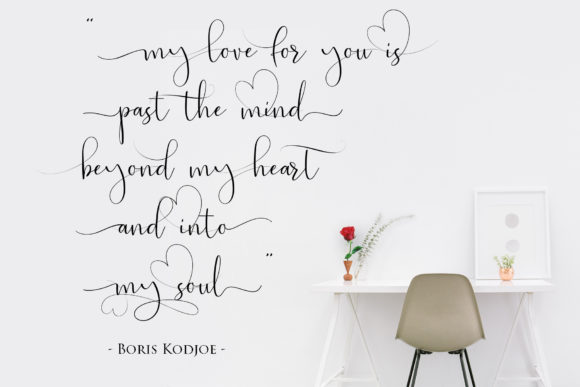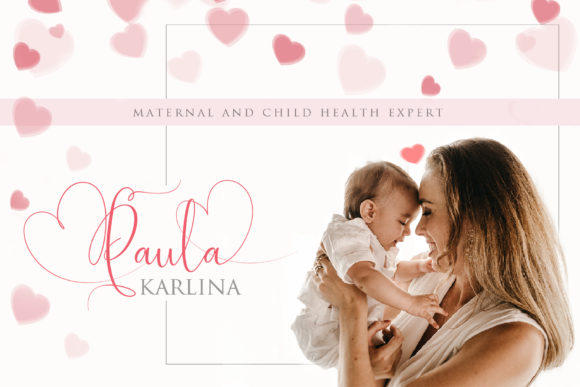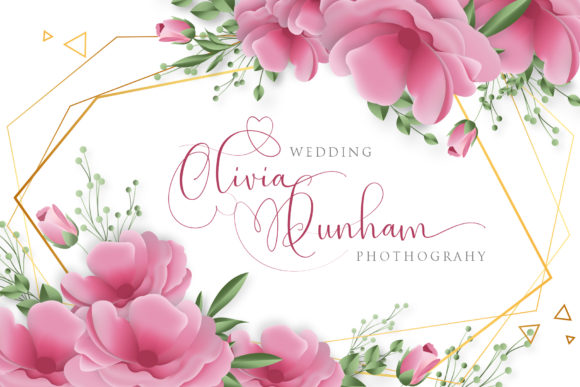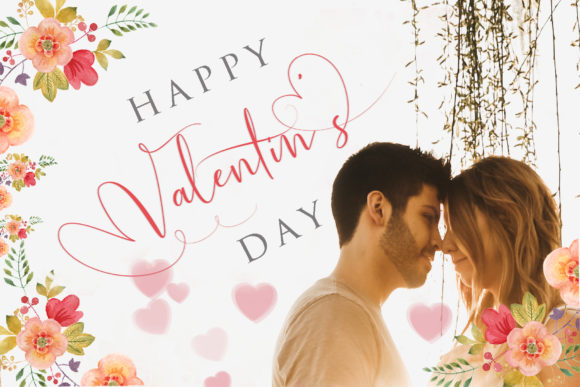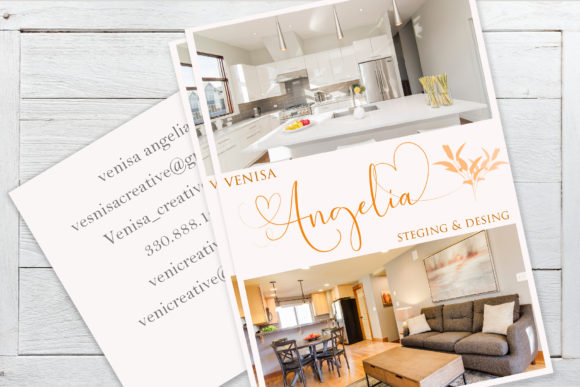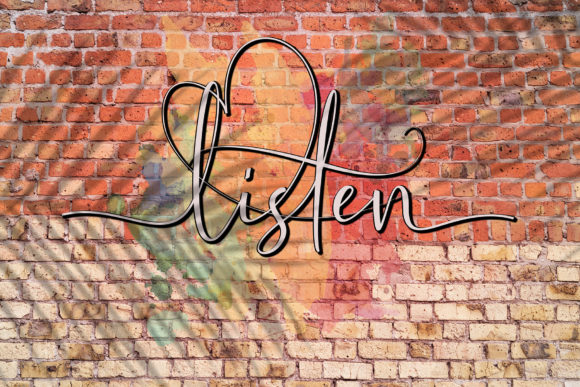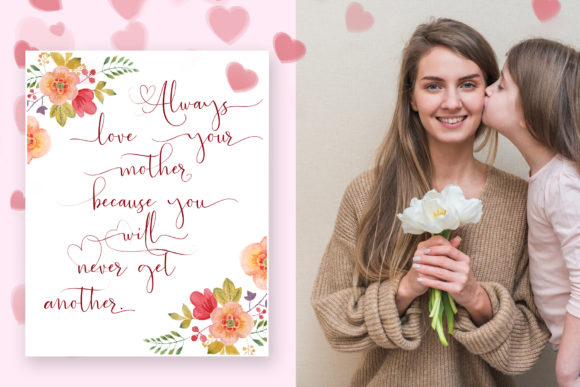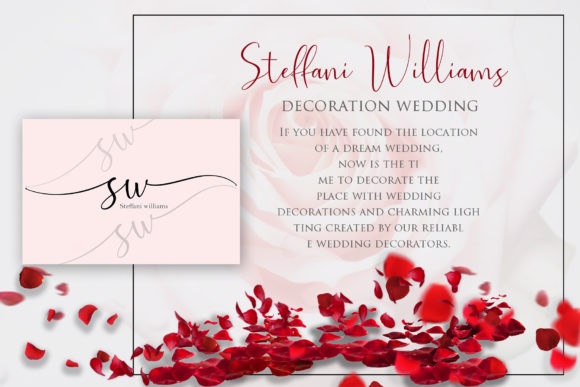
Bestlove Font
About Bestlove Font
Fall in love with Bestlove. This one-of-a-kind handwritten font will turn any design project into a lovely stand out.